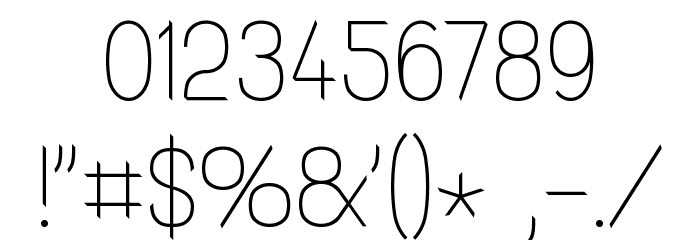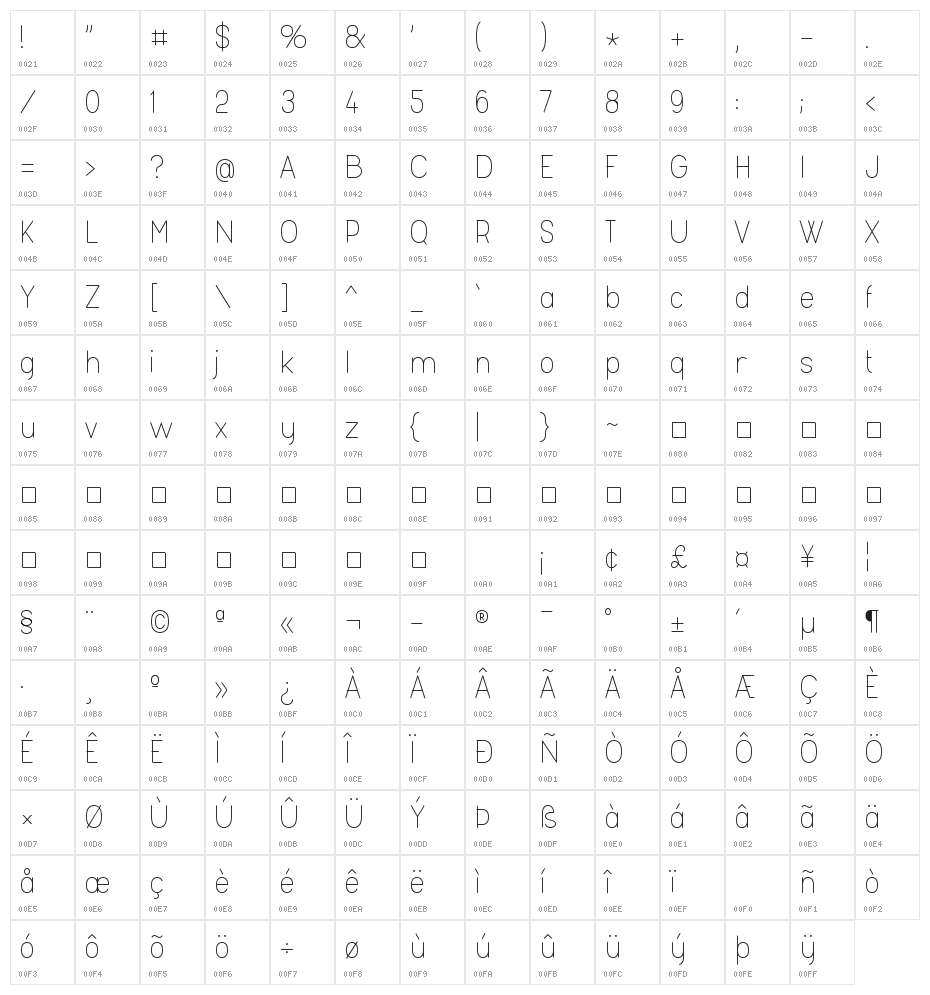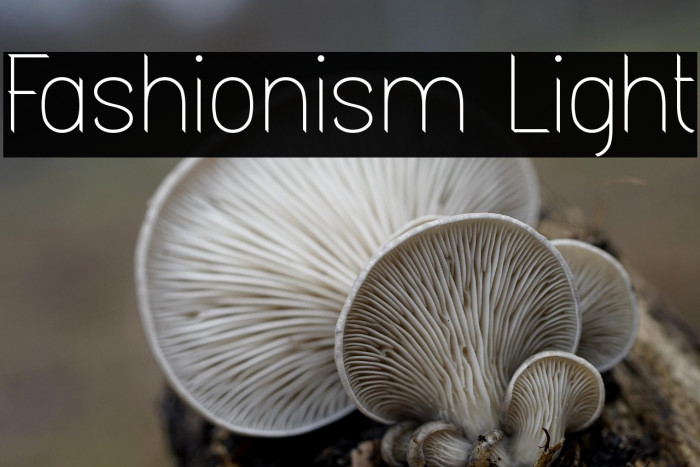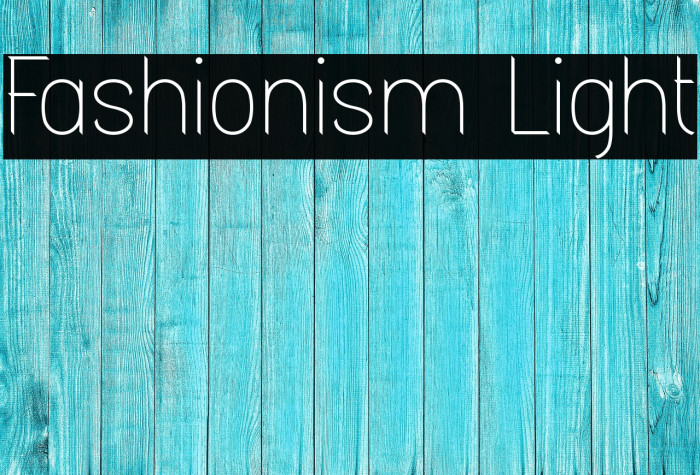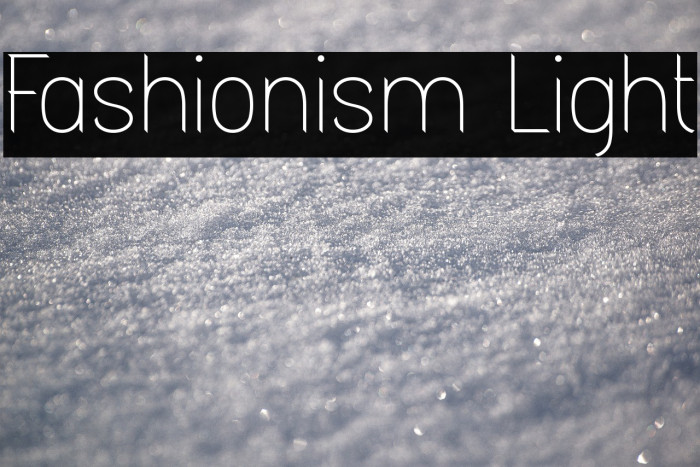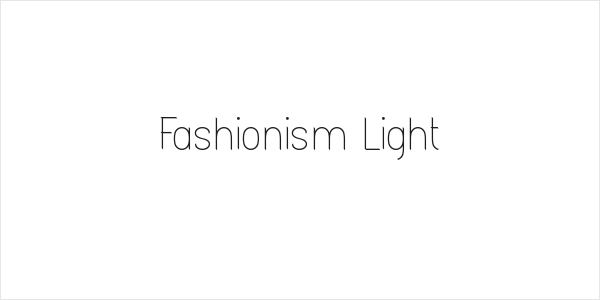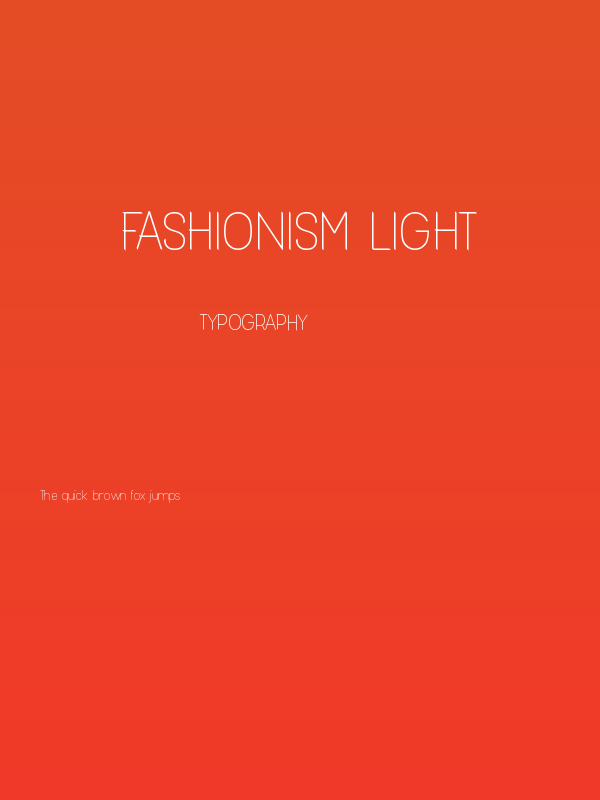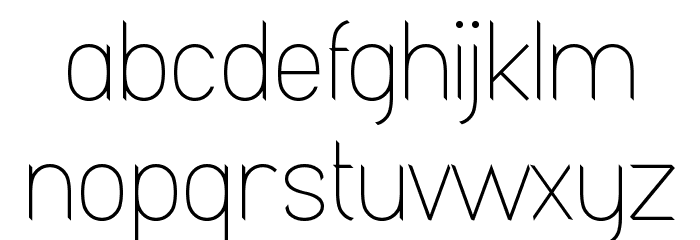
Fashionism Light Font
Fashionism Light Description
This font features a sleek and modern design with thin, elongated strokes that convey a sense of elegance and sophistication. The characters are well-defined with a consistent line weight, making it highly legible. The uppercase letters are tall and narrow, while the lowercase letters maintain a similar slender appearance, providing a harmonious balance. The numerals are clear and distinct, ensuring readability in various contexts. Special characters are included, maintaining the font's minimalist aesthetic. Overall, this font exudes a contemporary style, perfect for projects that require a clean and refined look.
| Proposed Projects | Ideal for fashion magazines, branding, modern websites, and minimalist design projects. |